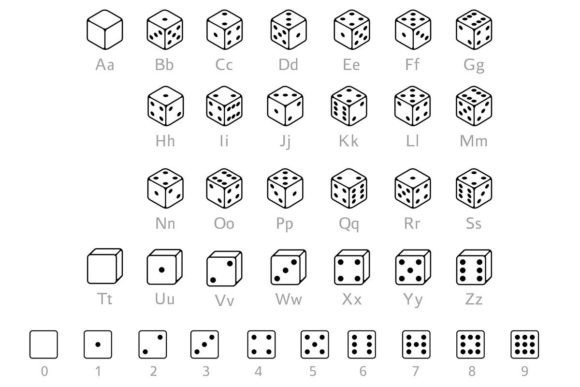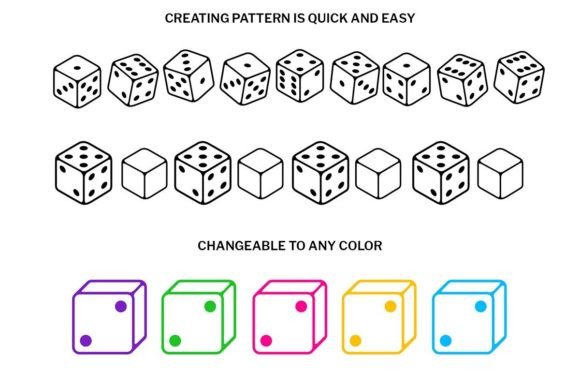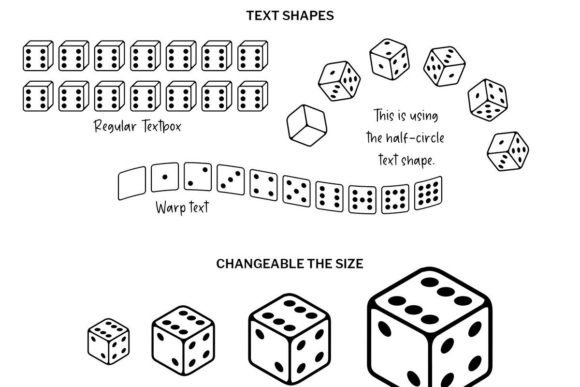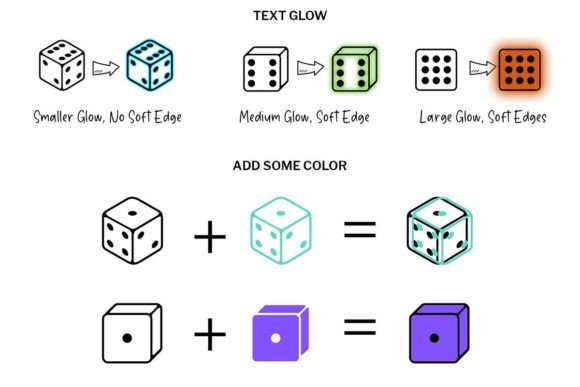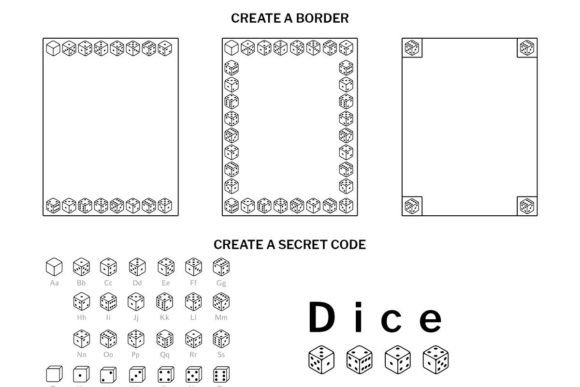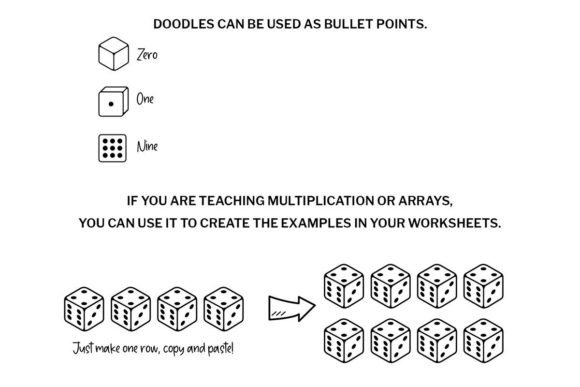
Introduction to Dice Doodle Font
Dice Doodle is a fun and cute dingbat font.
Its versatility makes it great for a wide pool of craft projects, designs, planners, diaries, activity books, or anything that your heart desires .
Key Features of Dice Doodle Font
Why Choose Dice Doodle Font?
Dice Doodle Font offers exceptional quality and versatility, making it a valuable addition to your design toolkit. Whether you’re creating for personal projects or commercial use, Dice Doodle Font delivers professional results.